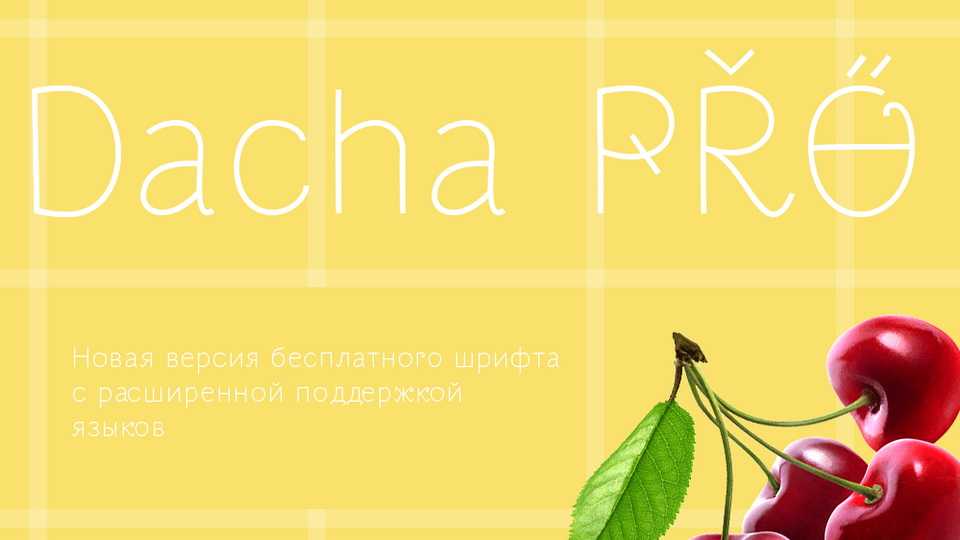
Download Dacha Pro font, a fun and playful handwritten typeface with an extended language support. Dacha Pro font is ideal for crafts, kids designs, branding and packaging for natural products and other projects that need a personal touch.
Designer: Denis Serikov